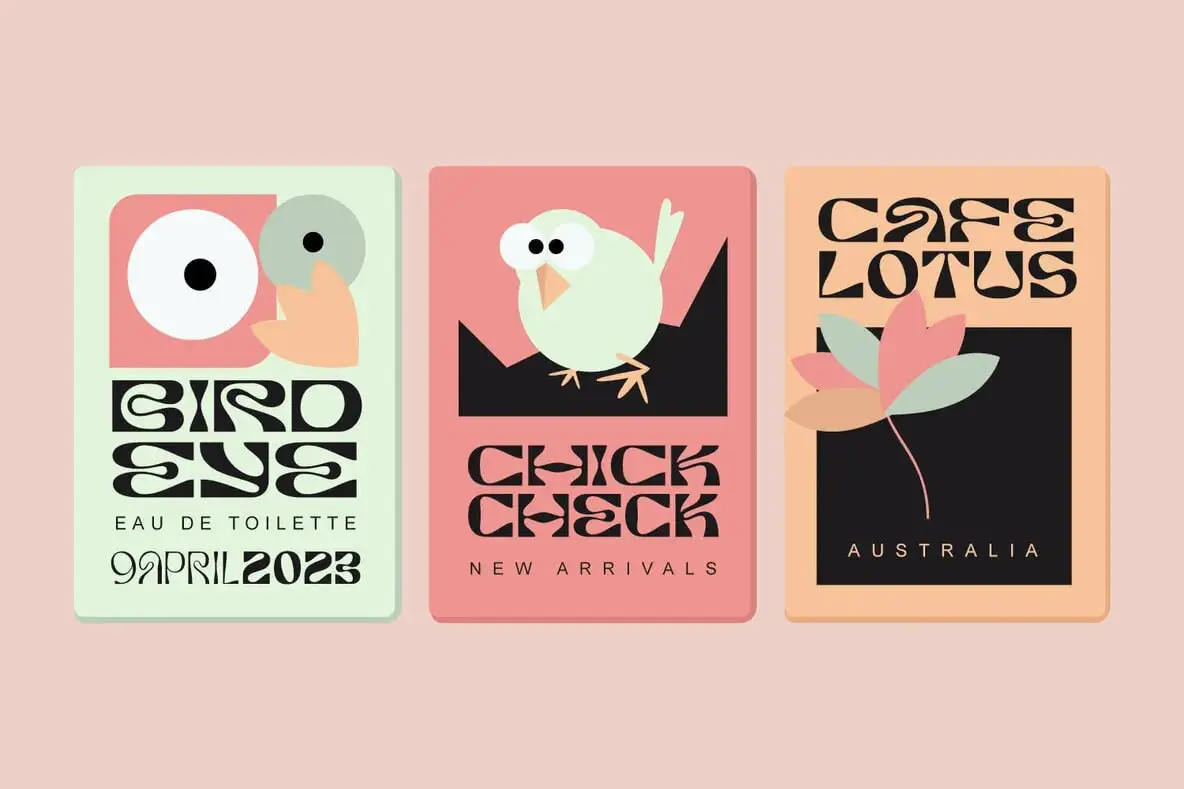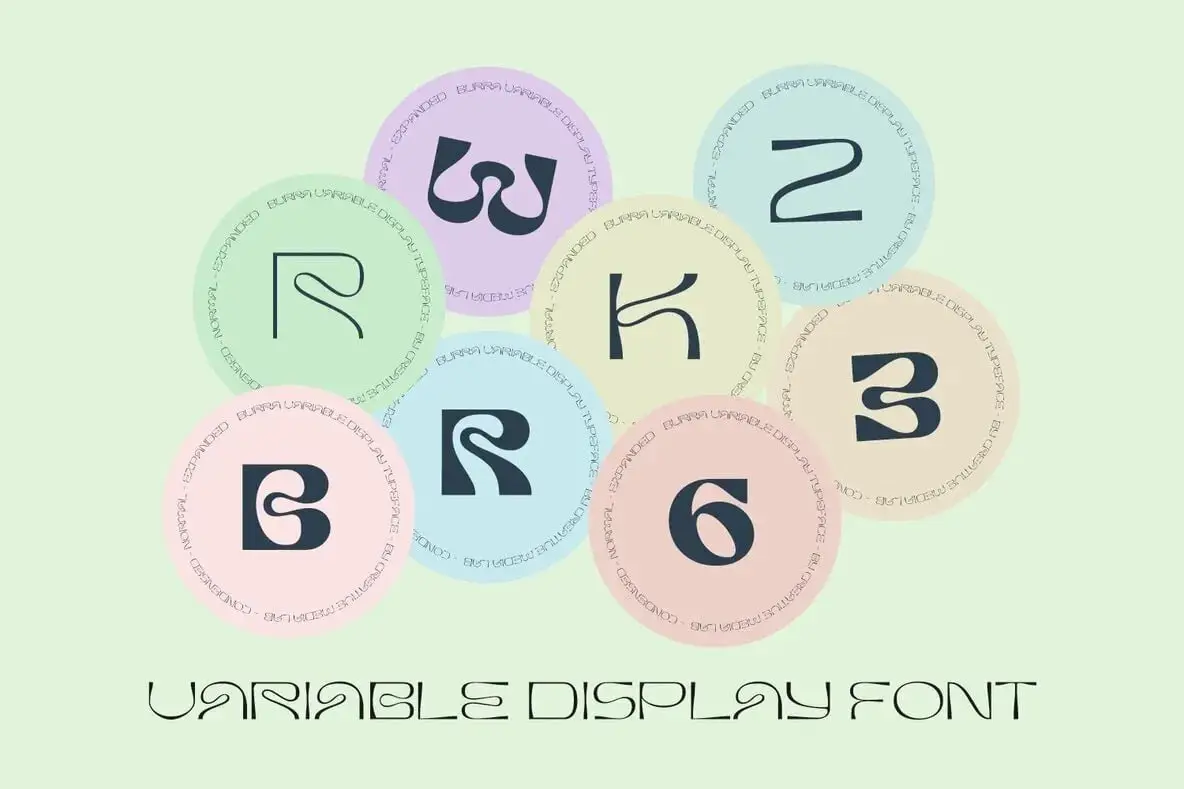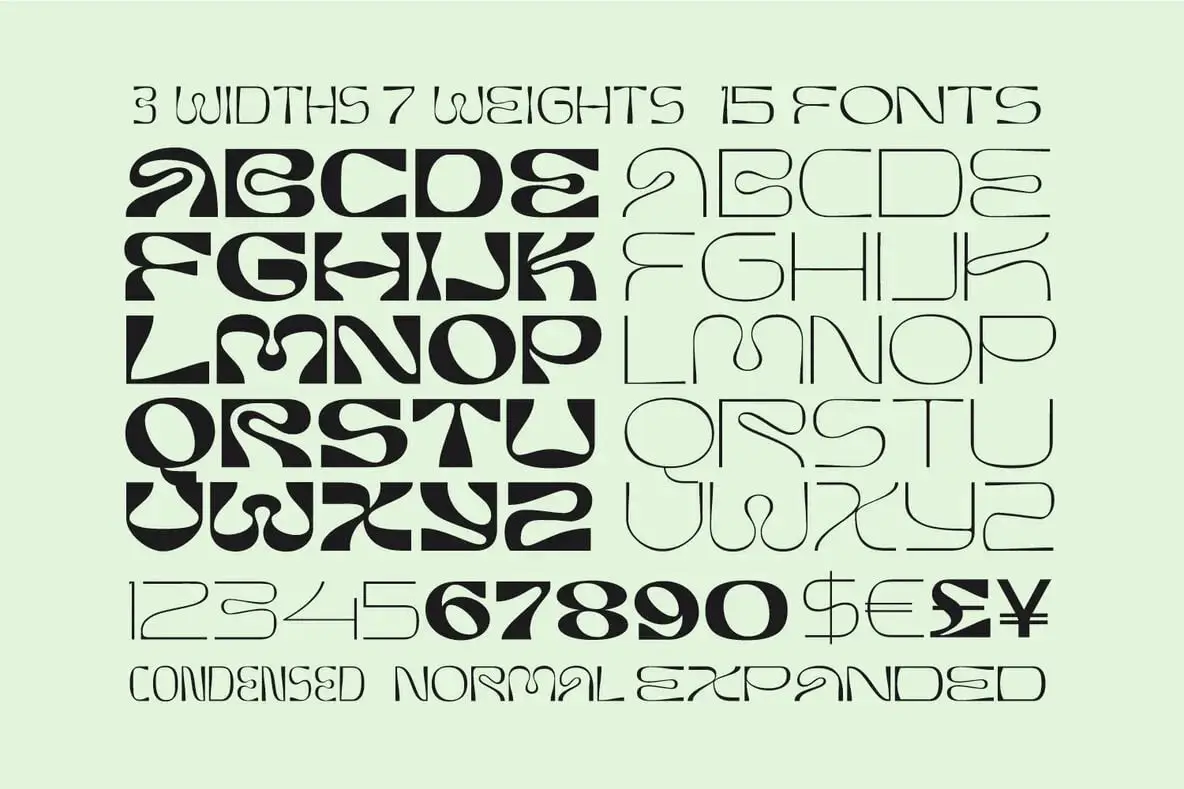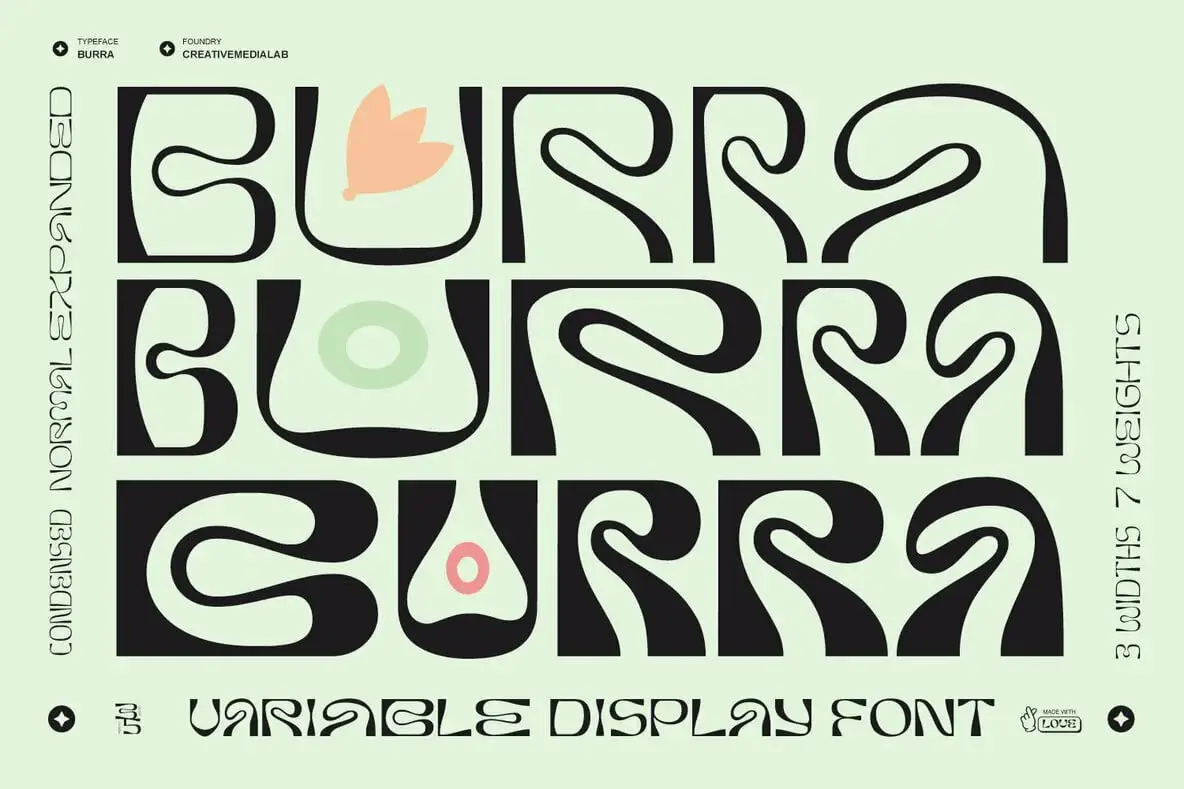
Burra Font By Kadek Mahardika
Introducing the Burra Font by Kadek Mahardika, a versatile typeface that combines elegance with modernity. This font is designed to elevate your projects, whether in print or digital formats.
• Multiple weights for varied applications
• Clear readability for both headlines and body text
• Perfect for web design and user interfaces
• Great for print projects such as brochures and business cards